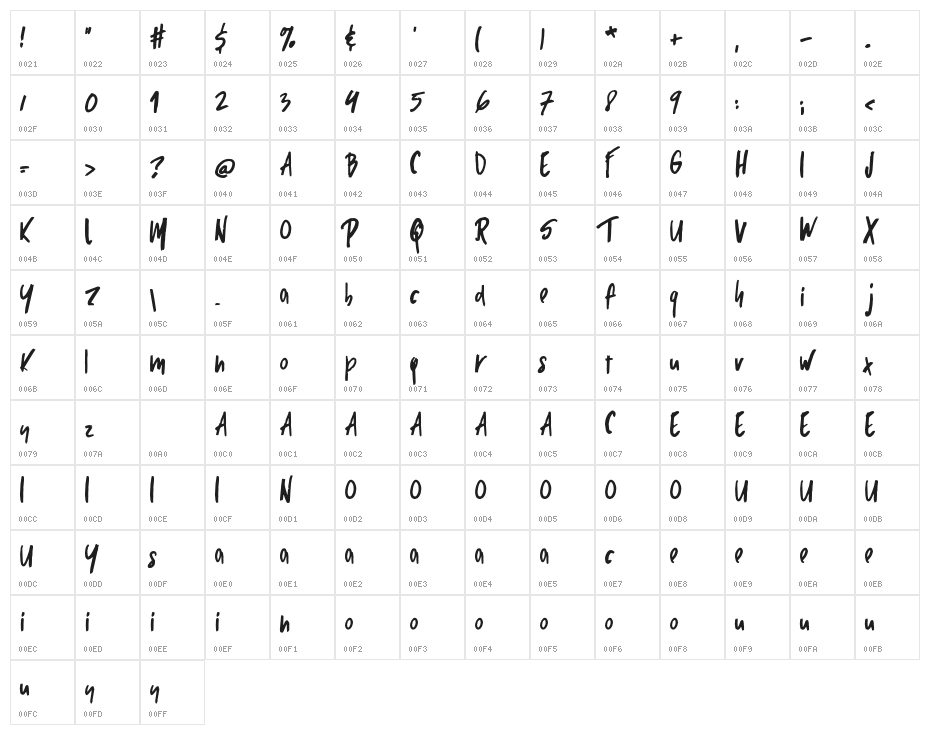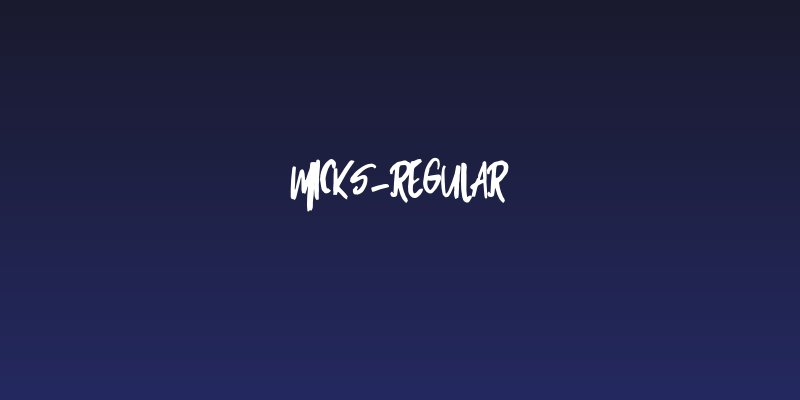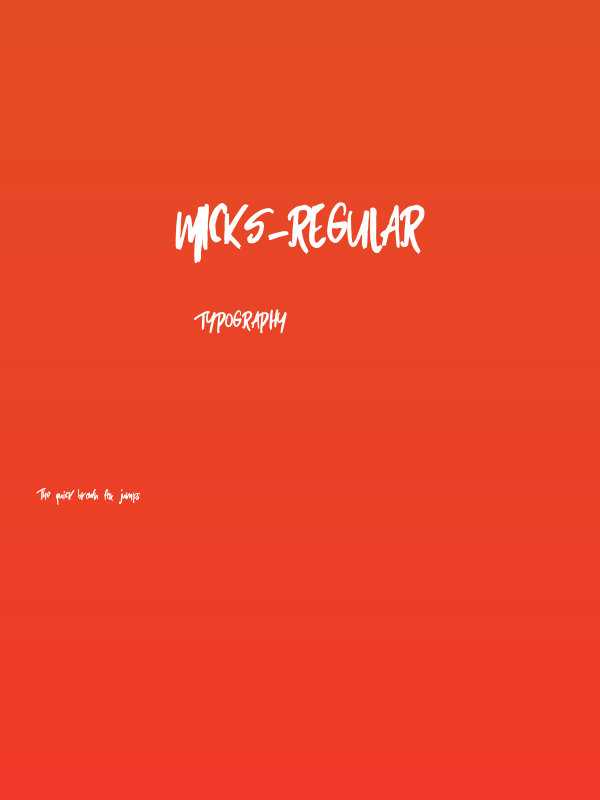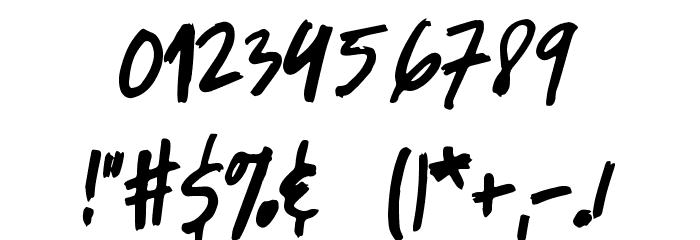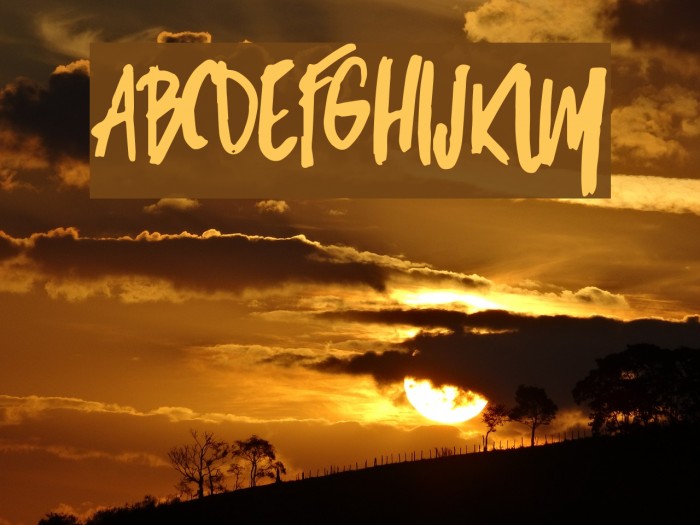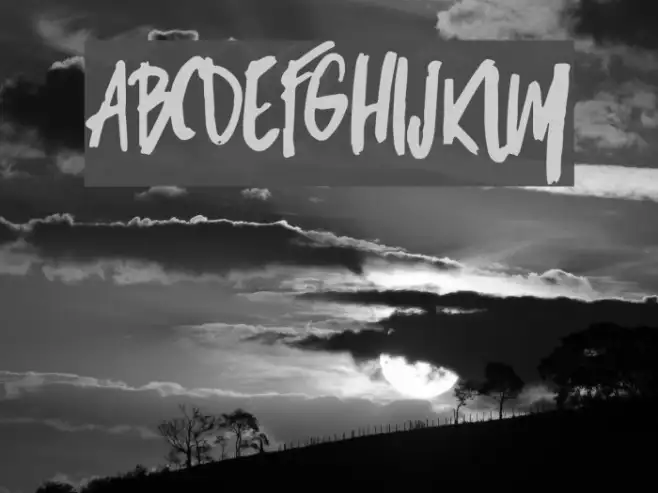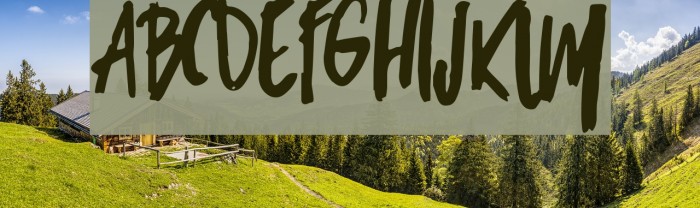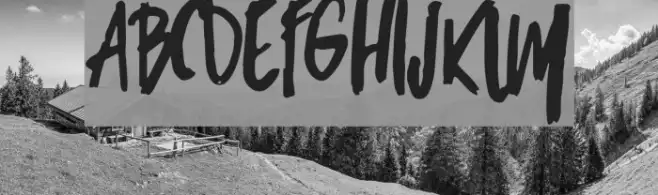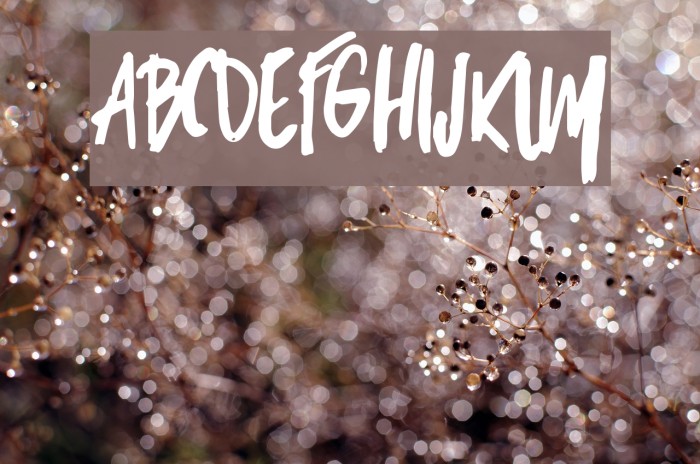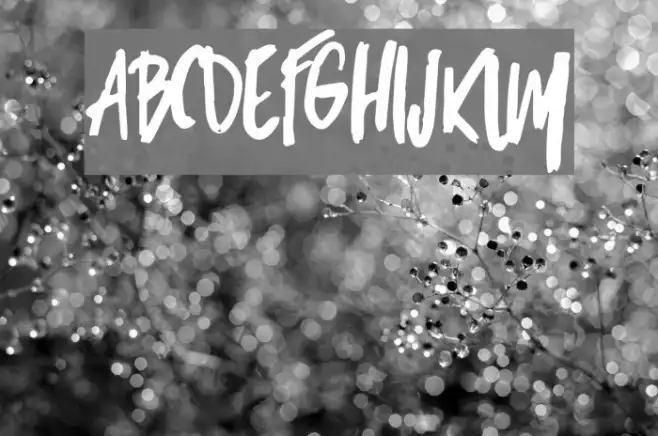
Micks-Regular Font
Micks-Regular Description
This font features a bold and expressive handwritten style, characterized by its dynamic and energetic strokes. The letters are slightly slanted, giving a sense of movement and fluidity. The uppercase and lowercase letters maintain a consistent style, with some variation in stroke thickness that adds to the font's lively appearance. The numerals and special characters are crafted with the same attention to detail, ensuring a cohesive look across all characters. This font's unique style makes it stand out, offering a personal touch to any design project.
| Proposed Projects | Ideal for branding, posters, invitations, and any project requiring a personal, artistic touch. |